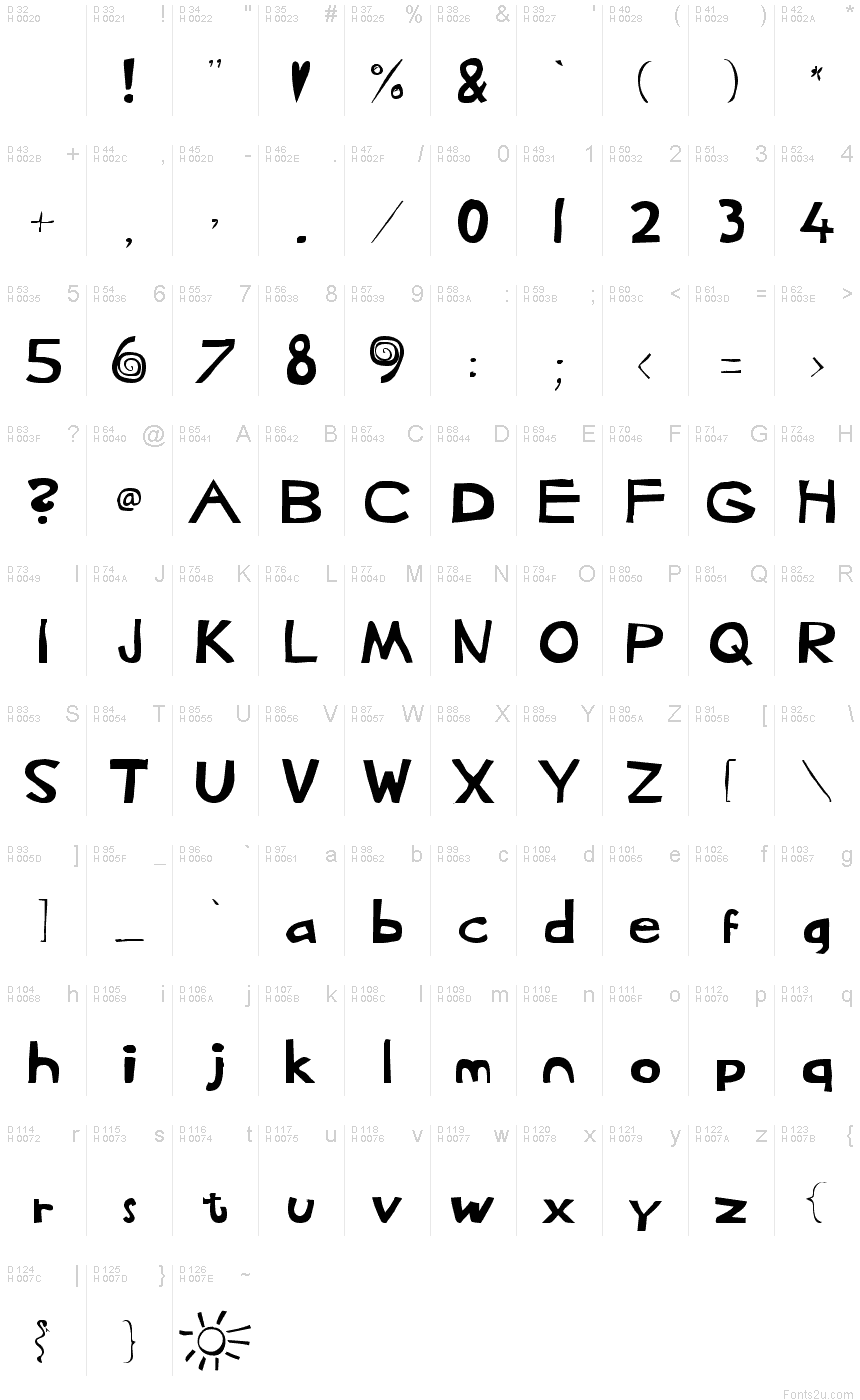
Heffaklump
Heffaklump font by Jenny Barck is a free comic display typeface with a bouncy, hand-drawn swagger that feels straight out of a doodled notebook. Tall, wobbly letters lean and stretch, with chunky black fills and uneven curves that give every word a loose, giggly energy. It has that “cut from paper and glued together” charm—imperfect in all the right ways, so nothing feels stiff or digital.
Using Heffaklump, you can bring character to kids’ book covers, party invitations, classroom posters, comic panels, zines, playful logos, and quirky social graphics. This free font shines when set large and bold; pair it with a clean geometric sans for small captions so Heffaklump can handle the loud, fun headlines.